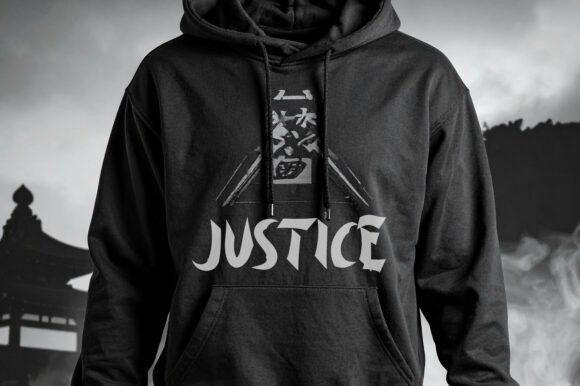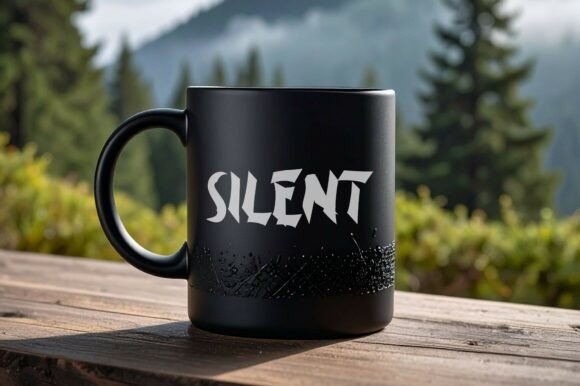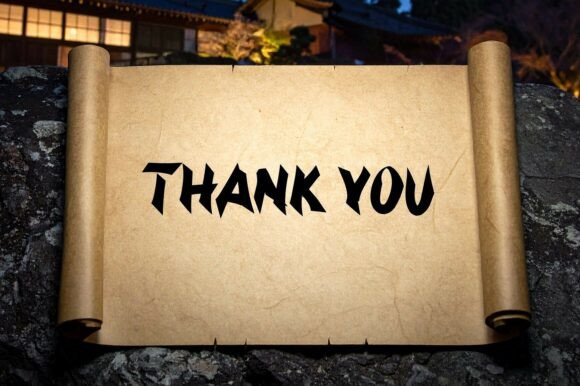
Unleash the Fury of Asian Ninja Font
Have you ever stared at a blank canvas, waiting for that spark of inspiration to ignite your creativity? That’s exactly what happened to us when we stumbled upon the Asian Ninja Font. Its bold, edgy aesthetic seemed to leap off the screen, demanding attention and begging to be used.
The Asian Ninja Font is a high-impact display font that masterfully combines stylized Asian-inspired brush strokes with a modern, fierce attitude. Its sharp, jagged edges and irregular strokes give it a raw, energetic force that’s impossible to ignore. Whether you’re a seasoned designer or just starting out, this font is a valuable addition to your toolkit. With its bold and fragmented appearance, it’s perfect for striking headlines and prominent branding.
Asian Ninja Font Key Features
- Font Family: Asian Ninja Font
- Character Count: 1,000+ glyphs, including Japanese, Chinese, Korean, and English characters
- Unique Characteristics: Hand-drawn design with a mix of traditional Asian and modern elements, includes ligatures and contextual alternates for a more natural look
Asian Ninja Font Review
When I first saw the Asian Ninja Font, I was immediately drawn in by its bold and striking design. The font has a ✨ unique blend of traditional Asian characters and ninja-inspired graphics, making it a standout choice for any design project.
- ✨ Unique blend of traditional and modern design elements
- ✨ Highly customizable with various color options and layout styles
- ✨ Suitable for a wide range of design projects, from logos to posters
- ⚠️ May not be suitable for projects that require a more minimalist or subtle design aesthetic
Overall, I think the Asian Ninja Font is a great choice for designers who want to add a bold and eye-catching element to their projects. While it may have some limitations, its unique design and high level of customizability make it a valuable addition to any design toolkit.
Getting the Most Out of the Asian Ninja Font
Here are some tips to get the most out of the Asian Ninja Font:
- Combine the Asian Ninja Font with other fonts for a bold and eclectic design.
- Use the font for titles, headings, and emphasis to create visual interest.
The Asian Ninja Font is perfect for:
- Designing martial arts or ninja-themed graphics.
- Creating Asian-inspired artwork or graphics.
The Asian Ninja Font is a unique and stylized font, but it may not be suitable for all designs. Here are three alternatives that can be used in different contexts: